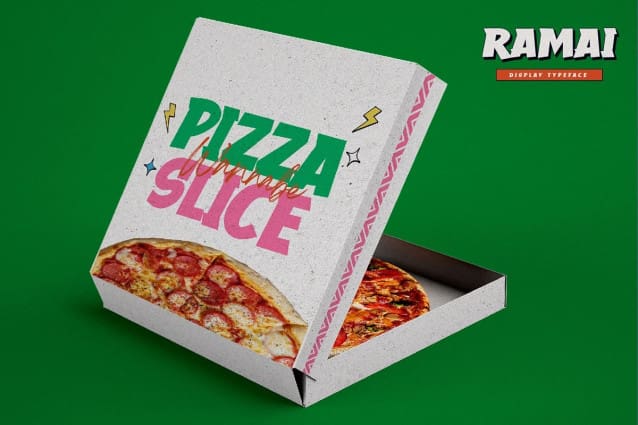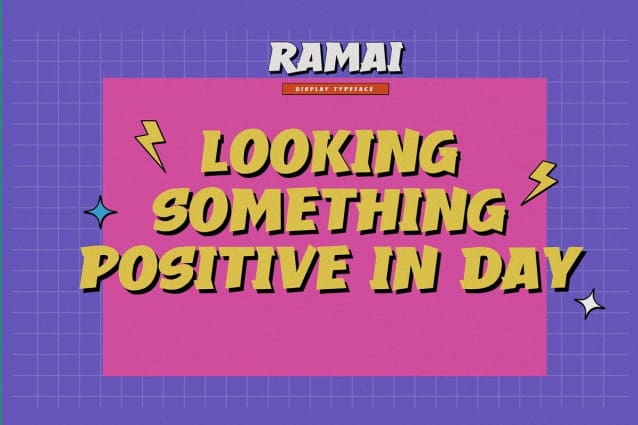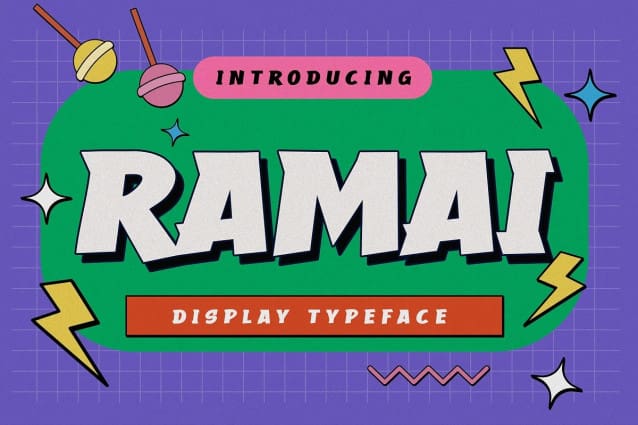
Ramai Display Font
Ramai Display Font is Display Typeface with a natural feel. This handmade font will make your design has a beautiful natural touch for each details. It is perfect for any design project as Invitation,logo, book cover, craft or any design purposes. RAMAI Display is Inspired by Food Logo style and combination with Unique Craft style. that will fulfill your design needs for quotes,sporty theme, logotype, wordmark, etc. This has many opentype features and support multi language. This font is PUA encoded which means you can access all of the magical glyphs with ease!